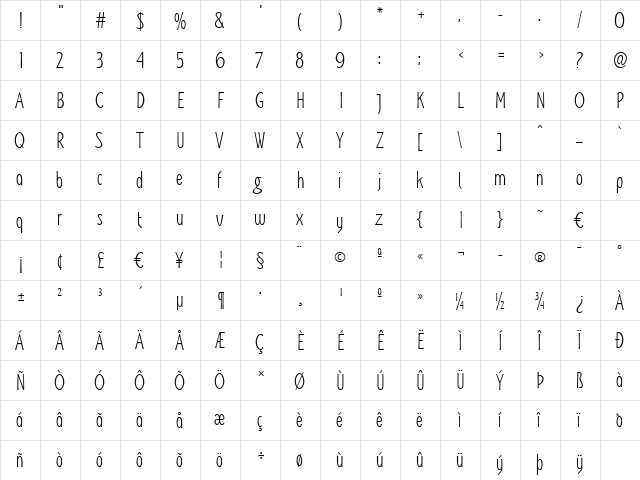
Artane Elongated BT Regular Font Preview
Artane Elongated BT Regular
Design Context for Artane Elongated BT Typeface
Artane Elongated BT takes a measured approach to typography — its balanced proportions and neutral character make it a reliable workhorse for both digital and print work.